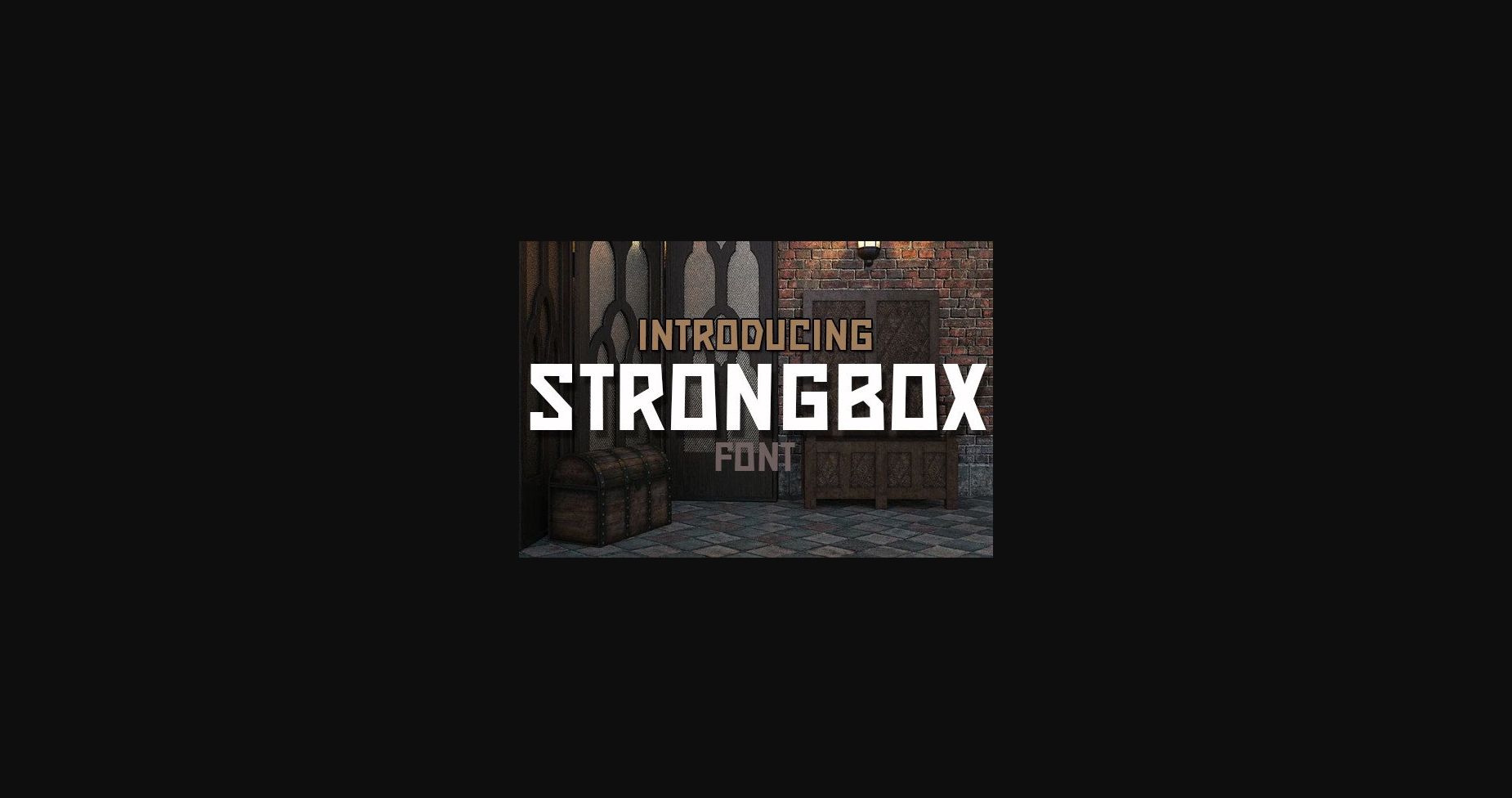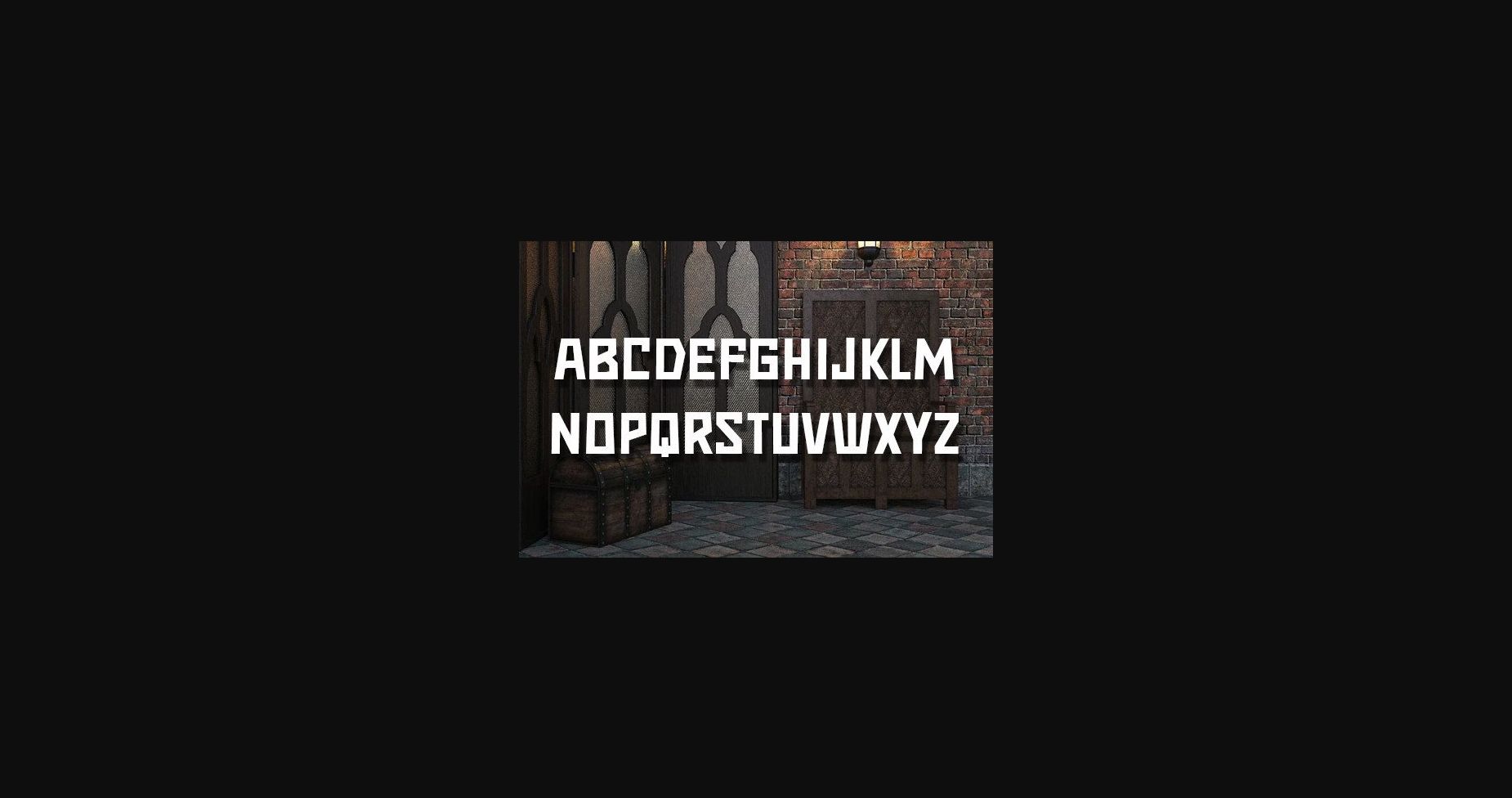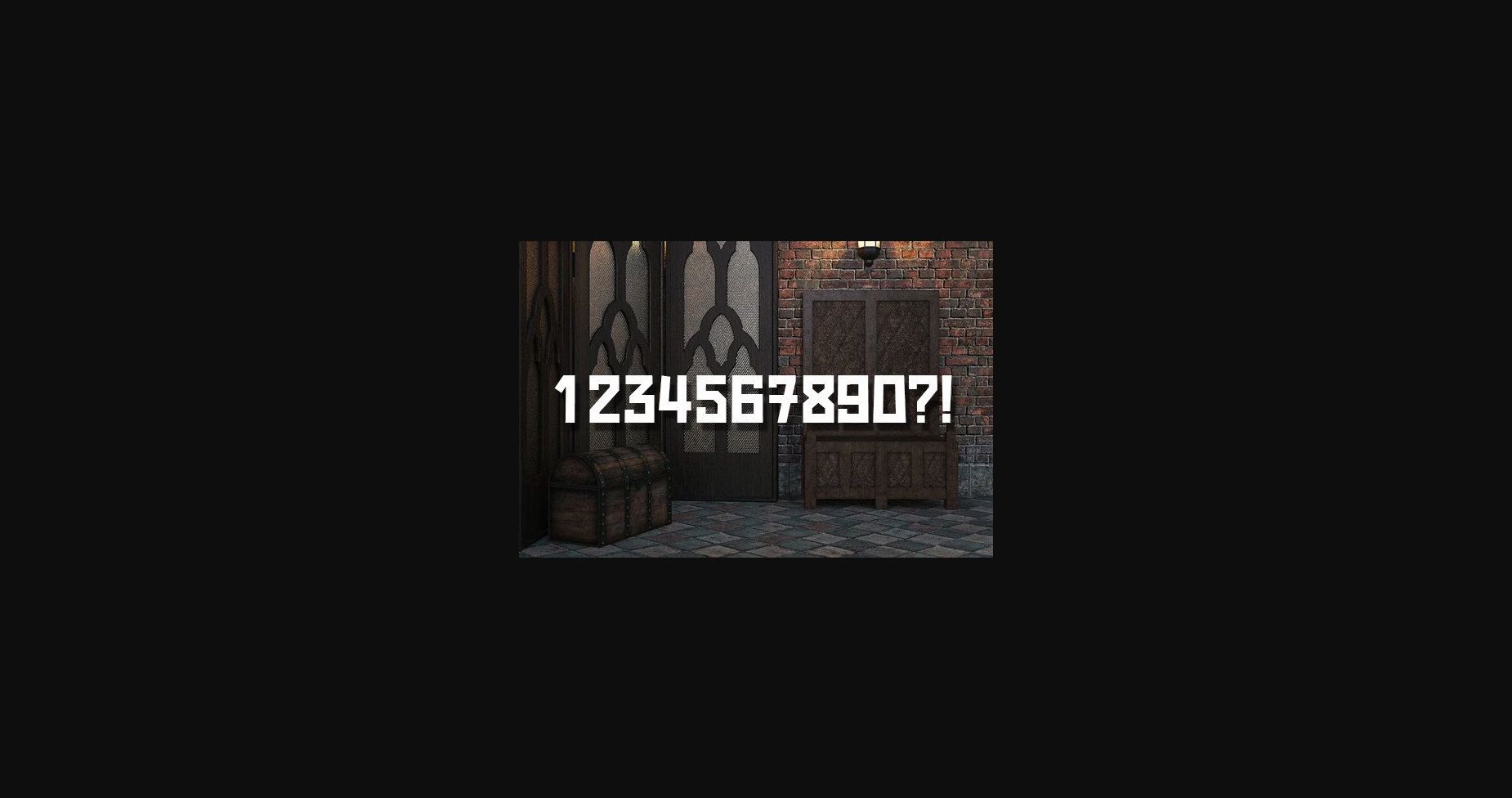
About Strongbox Font
Strongbox is an awesome sans serif typeface that will fit any of your design projects. Use this font on headlines, banners, and much more!